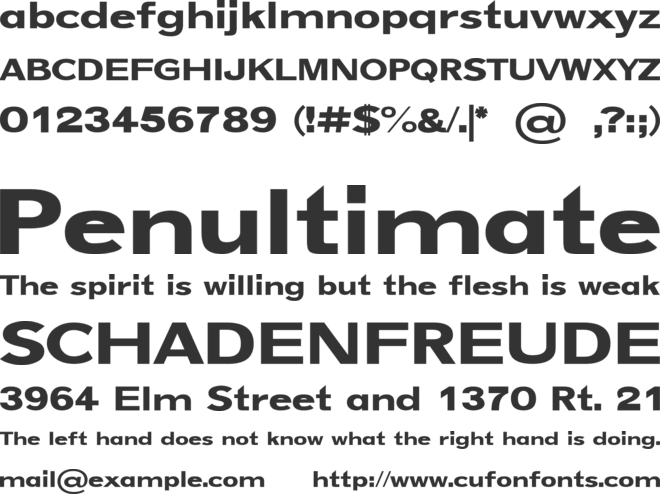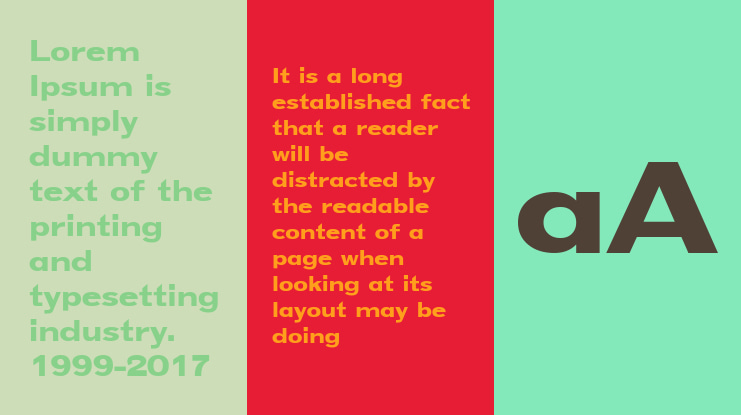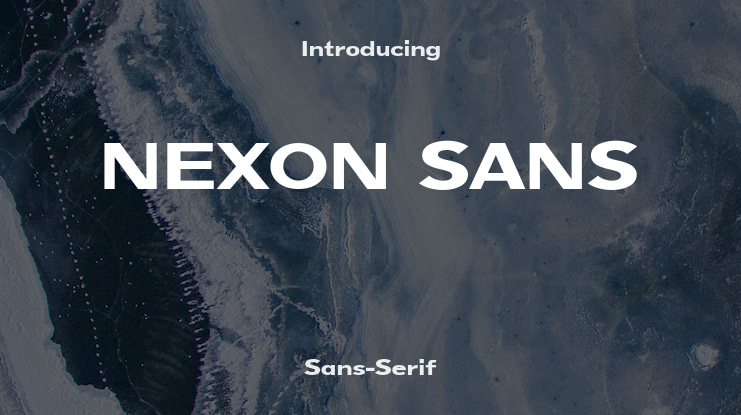
NEXON SANS Font Family
🎨 Font Name: NEXON by Minimalist Art Studio
🎨 Font description: Nexon is a geometric fat sans serif collection with multilingual support—perfect for tech branding, bold packaging, and futuristic editorial design.
✨ This is a LITE version (A–Z, lowercase, numbers, punctuation) to give you a taste of the full family.